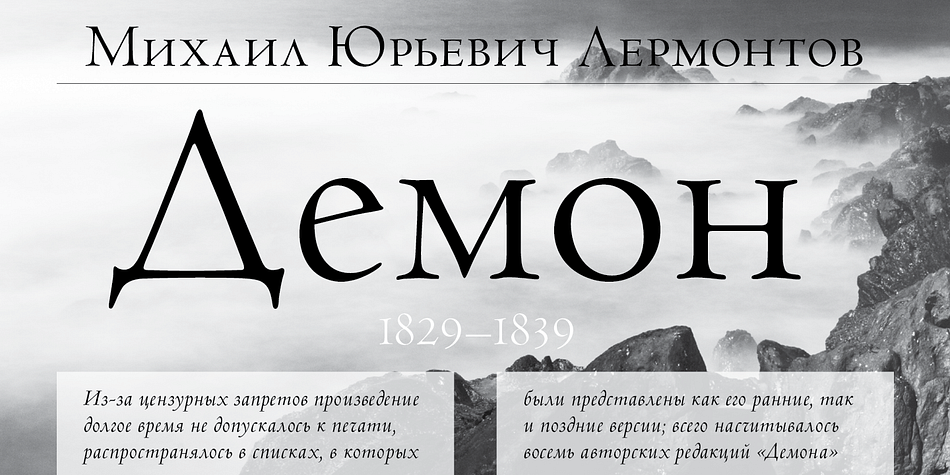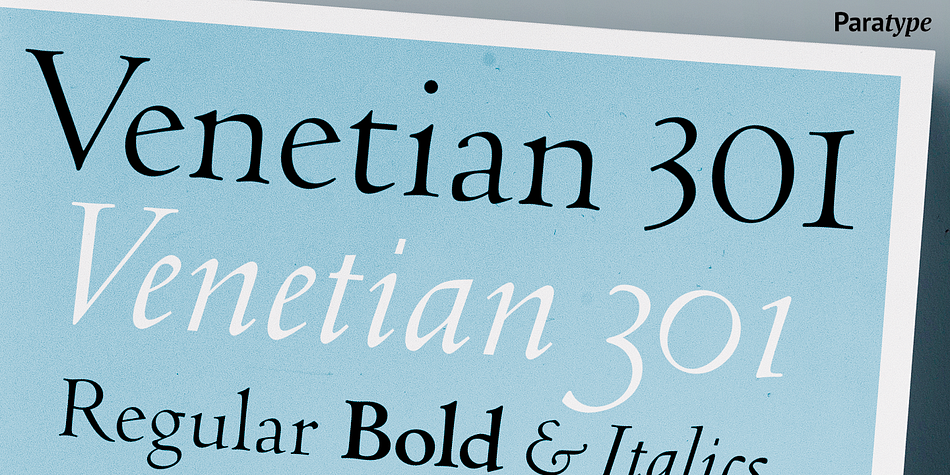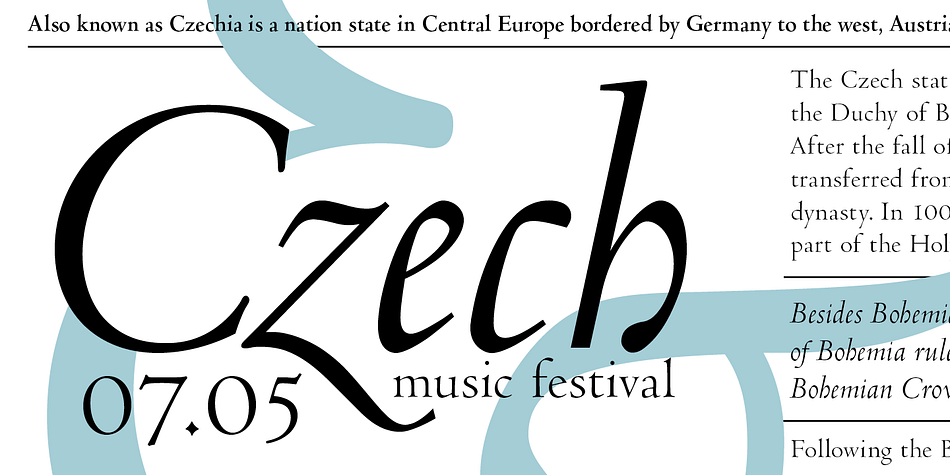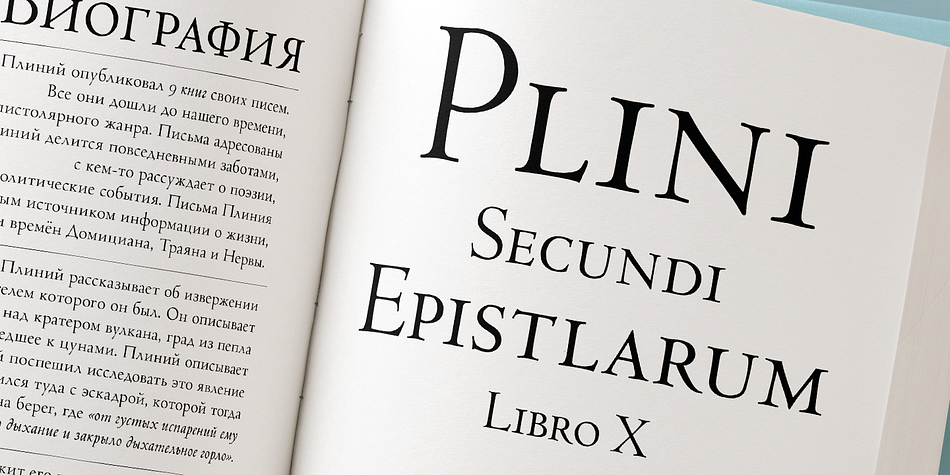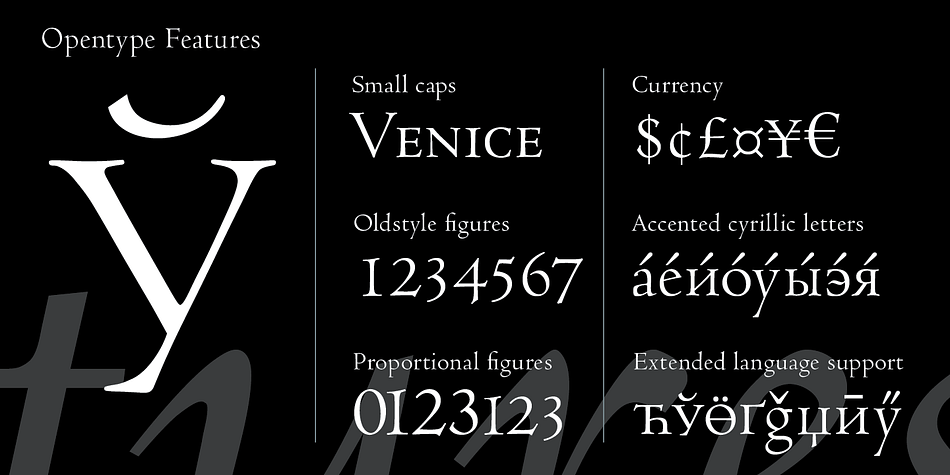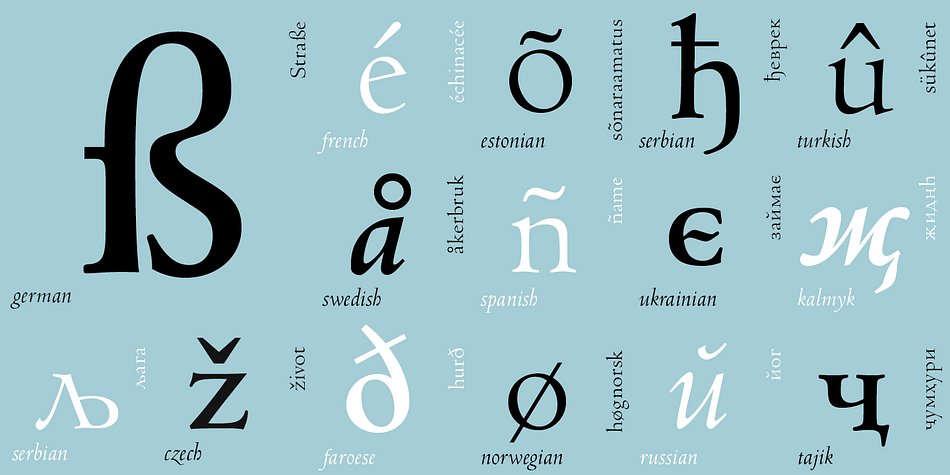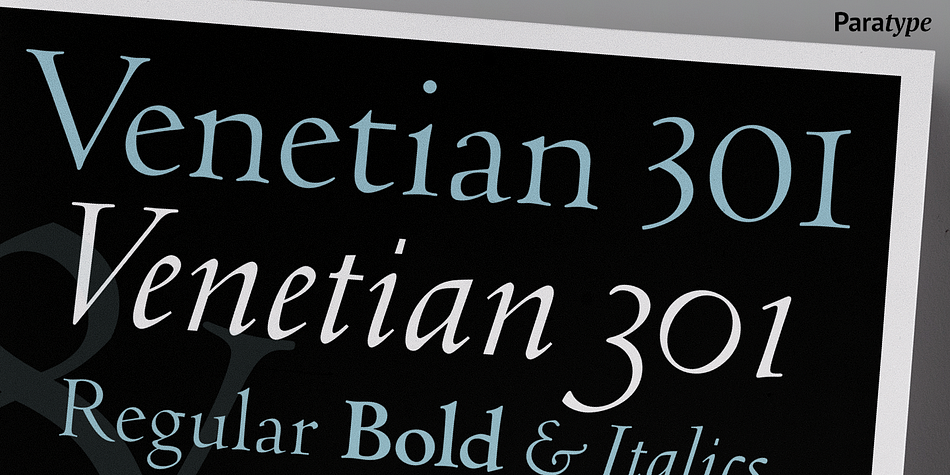
Designed by Dmitry Kirsanov, Venetian 301 is a serif font family. This typeface has six styles and was published by ParaType.
Venetian 301 is the Bitstream version of the Centaur type family. Centaur was designed by American book designer Bruce Rogers on the basis of Venetian typefaces of 1470 of Nicolas Jenson.
The beautiful italics are based on a face by Ludovico degli Arrighih. They were developed by Frederic Warde who was an American calligrapher and typography researcher. It was added as Italic to Centaur. It was adapted for mechanical composition by English Monotype in 1929.
Its lettershapes owe much to pen-drawn letters of Italian humanist minuscule and cursive. This elegant humanist face is useful for the finest typography both for book text and display matter. The Cyrillic version includes small caps and was developed for ParaType in 2003 by Dmitry Kirsanov.